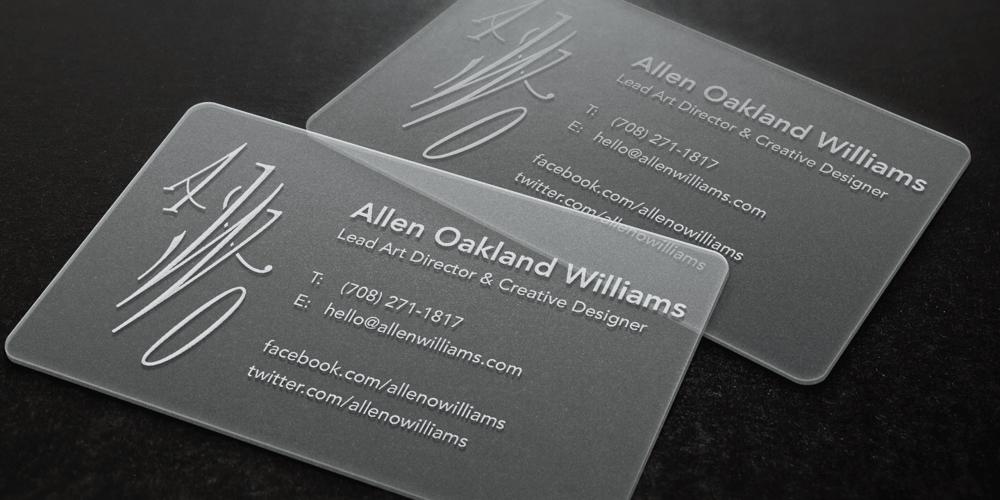
MFC Voyeur Monogram Font Family was designed by Jim Lyles, Brian J. Bonislawsky and published by Monogram Fonts Co.. MFC Voyeur Monogram contains 4 styles and family package options. The source of inspiration for Voyeur Monogram is the 1934 “Book of American Types” by American Type Founders. Found in that specimen book was a charmingly sophisticated diagonal monogram alphabet known as “Broadway Monogram Initials”. This wonderful typeface is now digitally recreated, revived, and updated for modern use. Download and view the MFC Voyeur Guidebook if you would like to learn a little more. MFC Voyeur comes complete with Pro format fonts. You will require with programs that can take advantage of OpenType features contained within the Pro fonts.